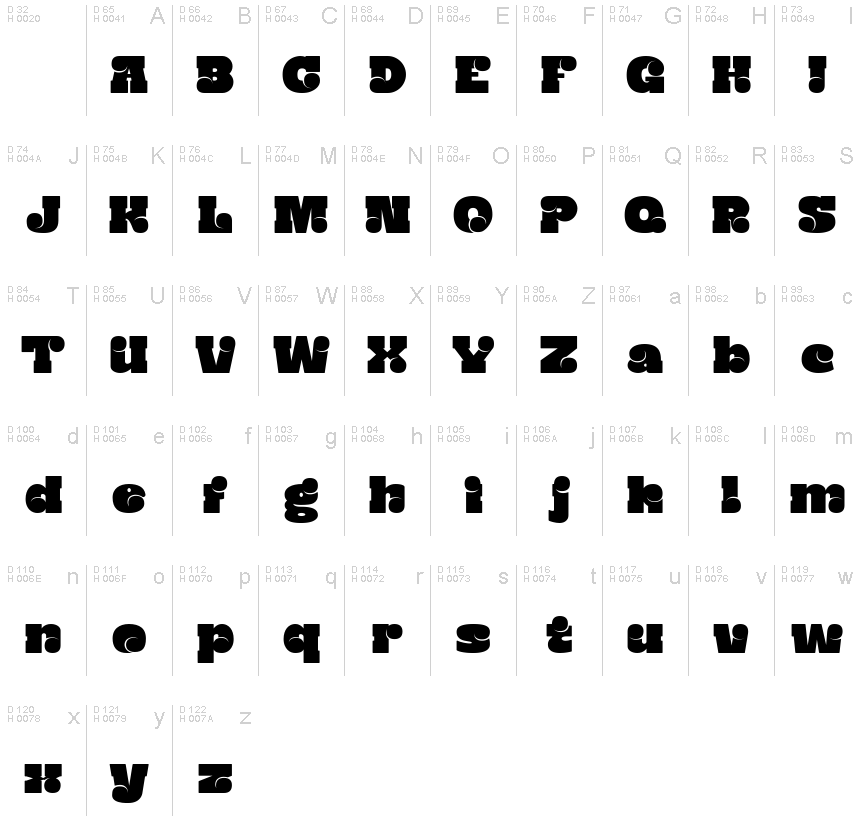
Acting DEMO Normal
Acting, designed by Dharmas Studio, is a bold display font that radiates a groovy flair, reminiscent of the stylish quirks of the past. Its curvaceous lines and playful loops infuse any text with a sense of dynamic motion and retro charm. The rounded contours and substantial form give it an approachable yet assertive personality.
Perfect for when you need your message to pop with a touch of nostalgia, Acting suits branding, headlines, and posters where the aim is to stand out with confidence. Its eye-catching style ensures that whether on digital platforms or in print, your words will capture attention with ease and hold it with their funky elegance.